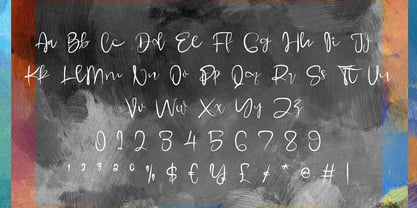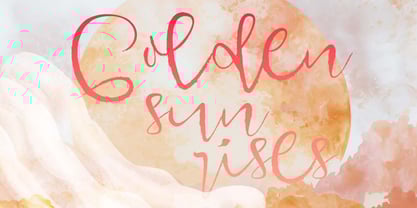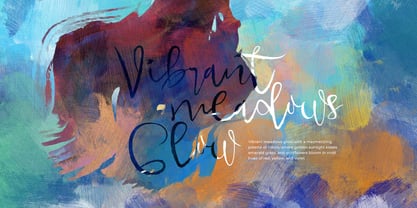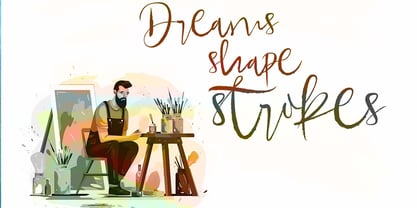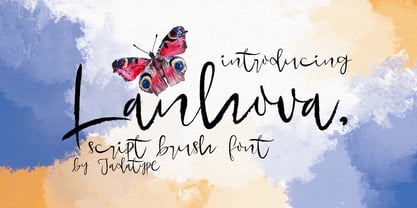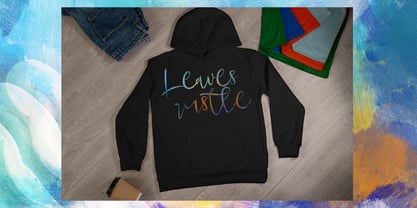
Lanhova
by Jadatype
The Lanhova Font Family was designed by Jada Akbal and published by Jadatype. Lanhova contains 1 styles. More about this family
Lanhova is a handwritten brush font with script style. suitable for your branding, product, logotype, events, and others. Lanhova contains standard English letters and several letters that support multilingualism. Can be installed in design applications such as the adobe family or affinity, Lanhova is ready to support your designs!